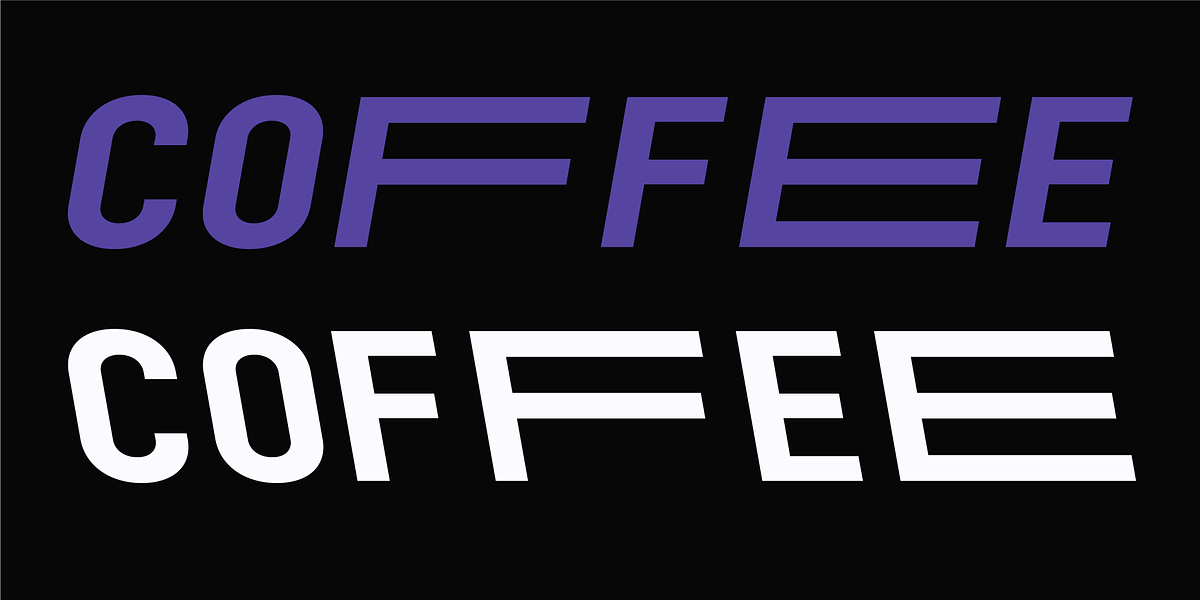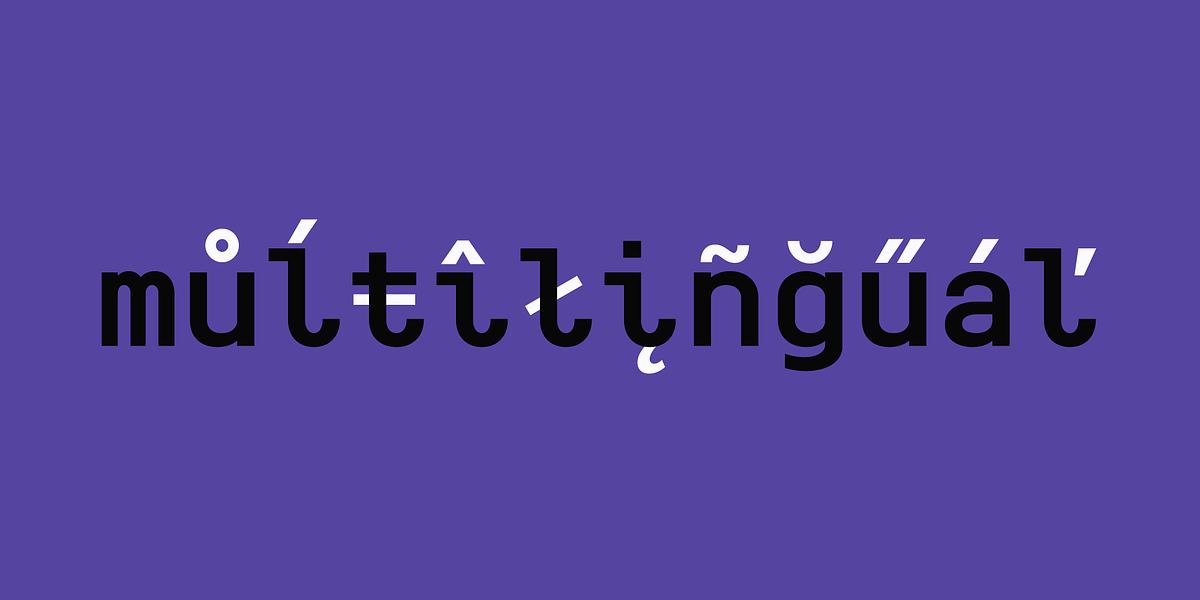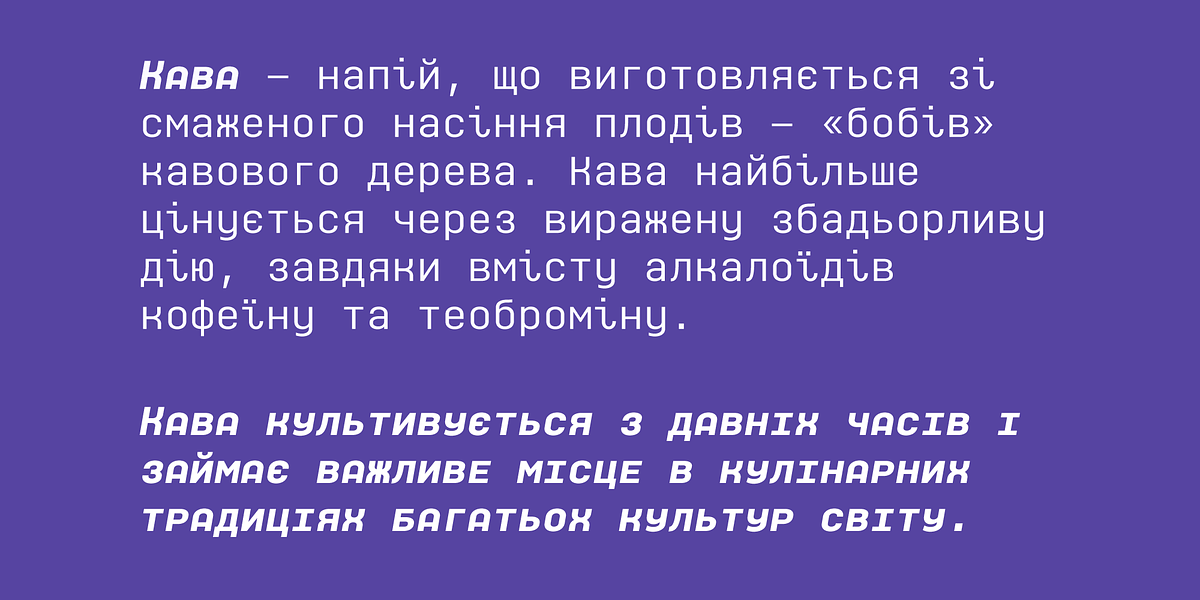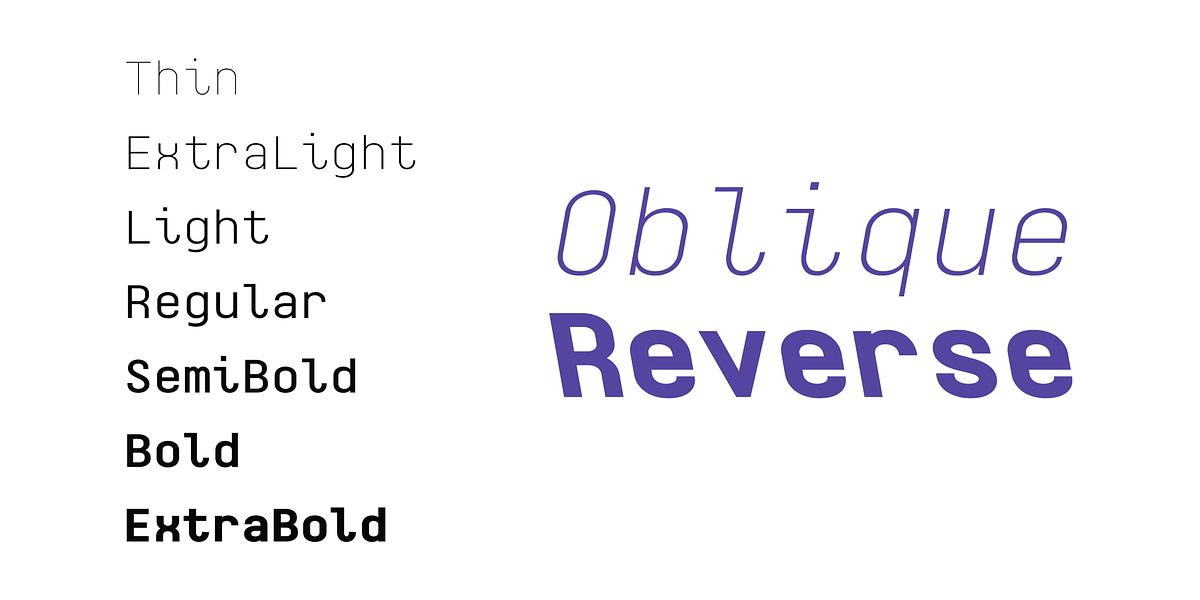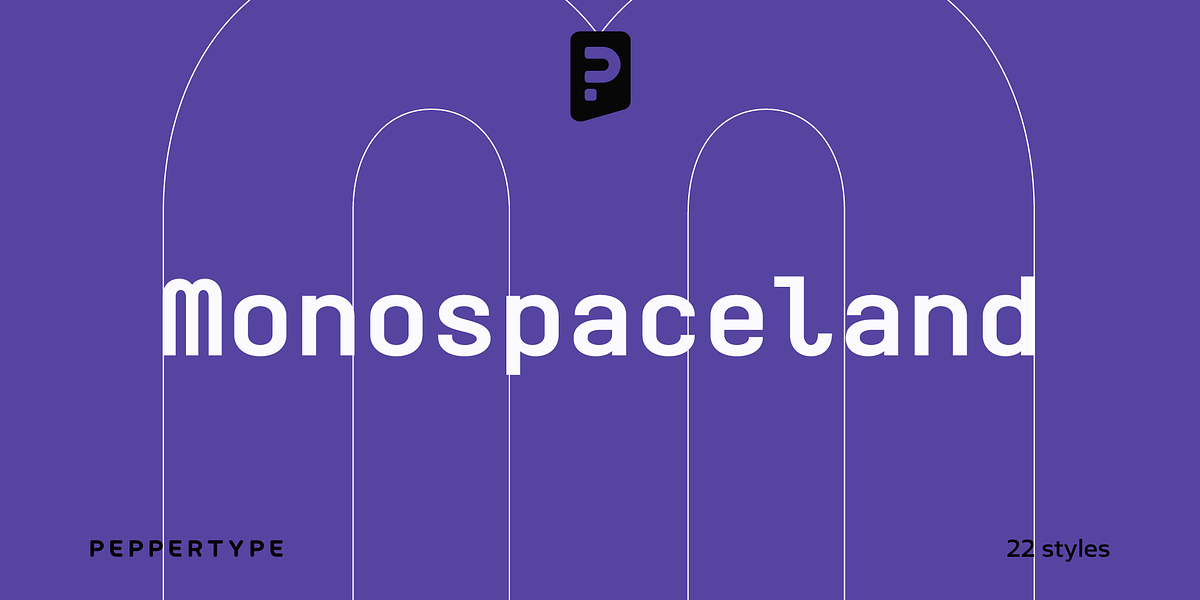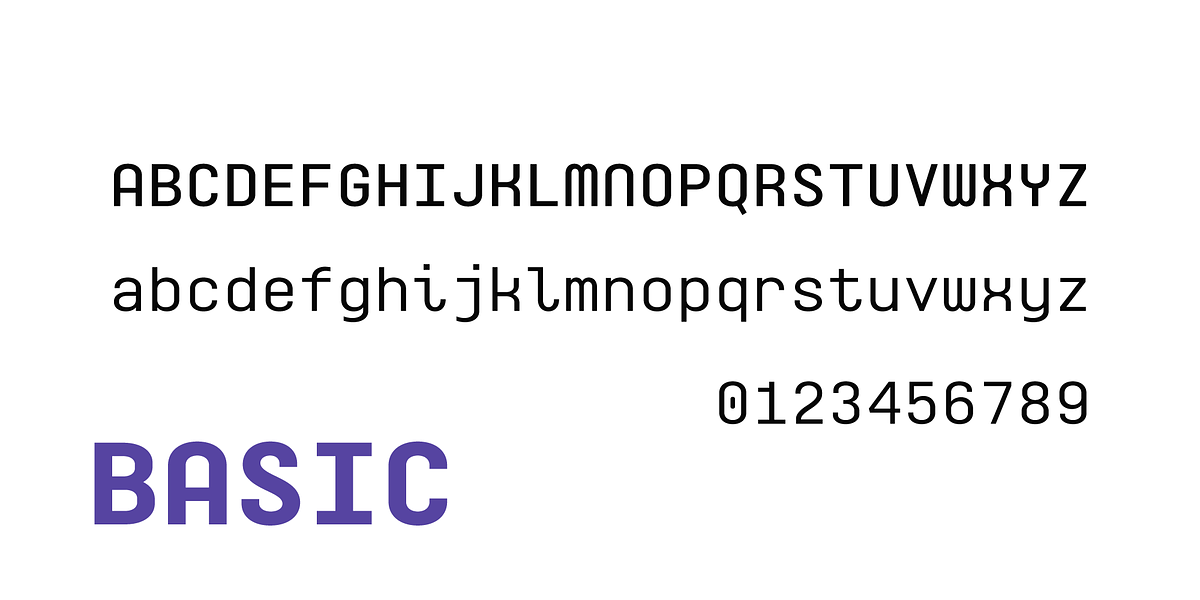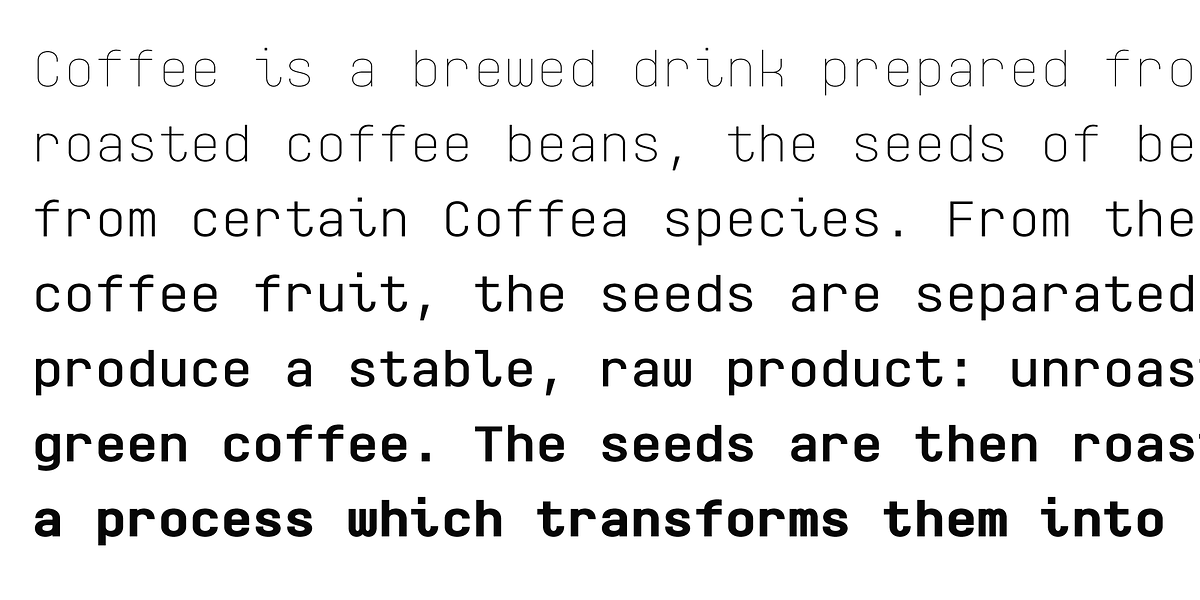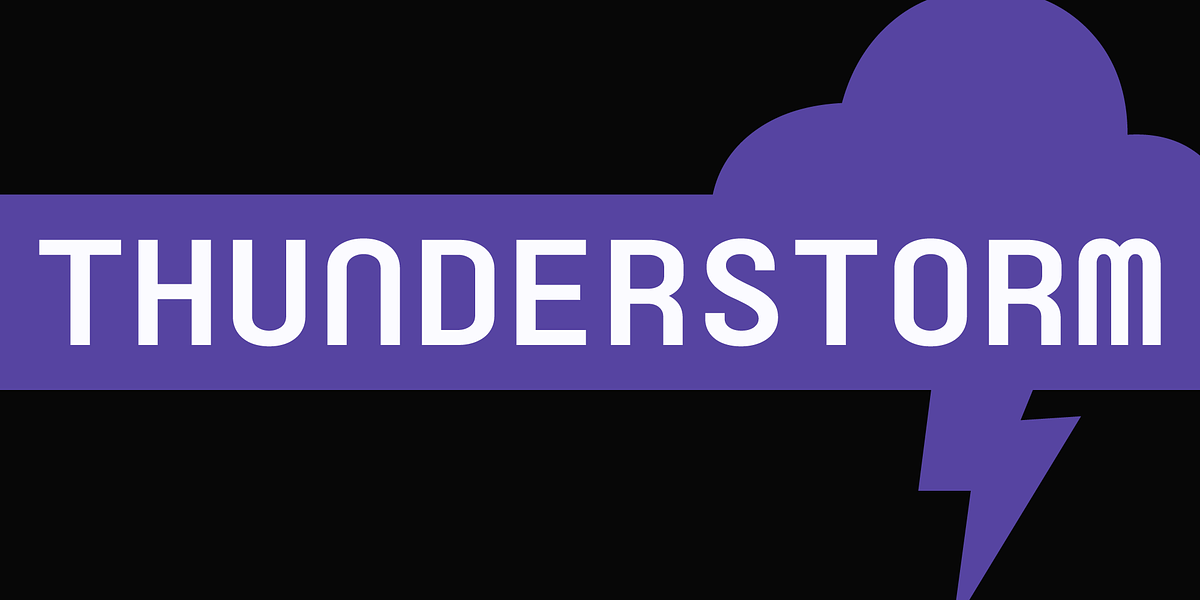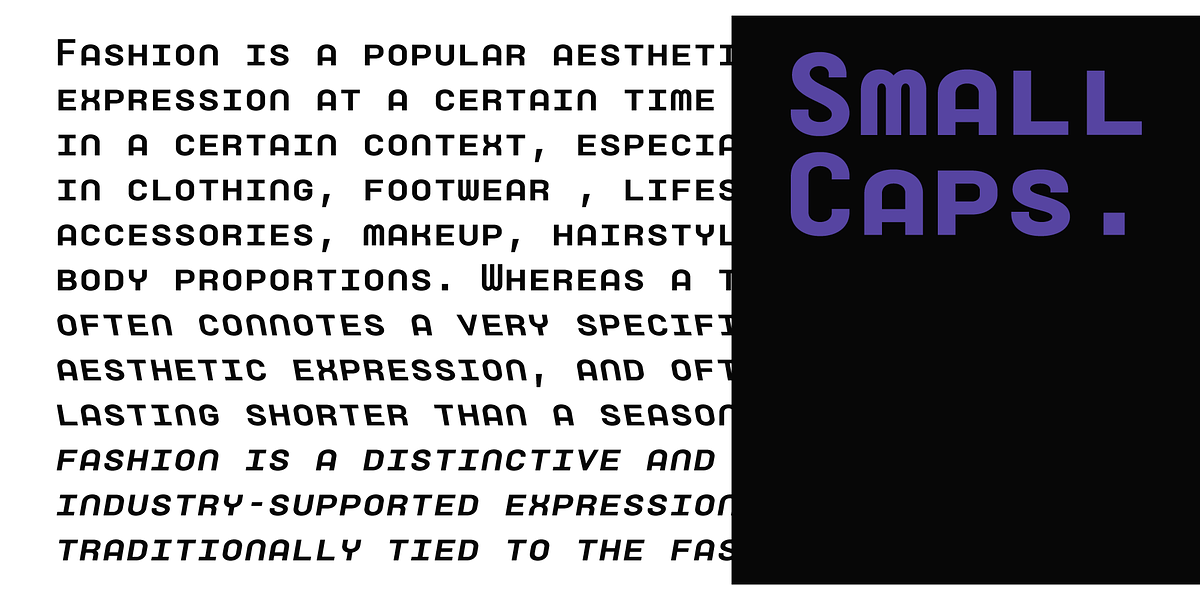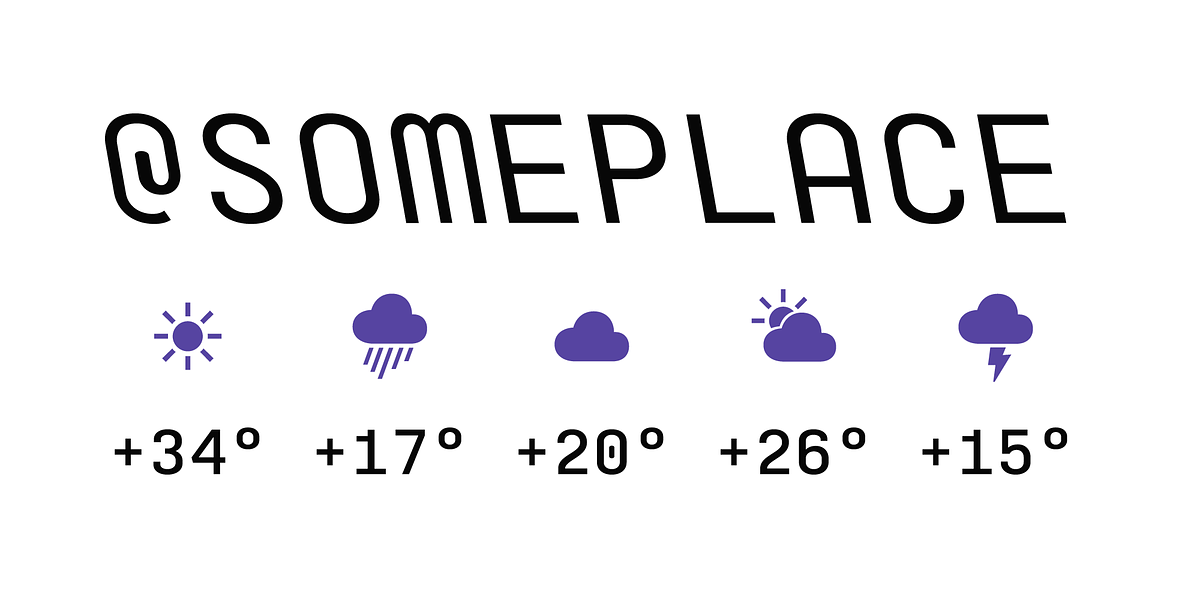
Monospaceland
Monospaceland is a versatile geometric sans serif typeface designed for coding and programming. It features a monospaced structure with rounded letterforms, contributing to a clean and modern aesthetic. The font comes in seven weights, ensuring flexibility for different coding contexts. Notably, it includes comprehensive language support, encompassing Cyrillic characters, and offers double-width alternatives for added visual interest. Monospaceland also provides obliques and reverse obliques, totaling 21 fonts. Furthermore, the family pack includes a two-axis variable font, allowing users to precisely adjust weight and slant angle according to their preferences.